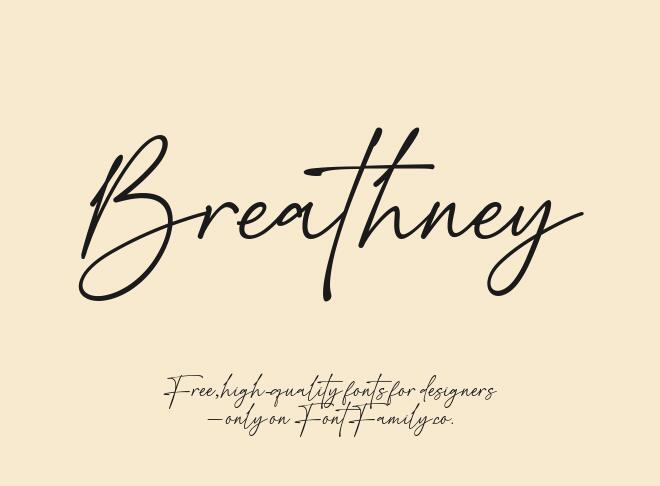
Breathney Font
Breathney Font is a sophisticated, handwritten script typeface designed by Design Foundry. This font exudes a classic elegance, making it perfect for high-end branding, wedding invitations, logo designs, and more. Its unique character set helps it stand out from other script fonts, while its smooth curves and fluid connectivity make it easy to read and aesthetically pleasing. Breathney Font is reminiscent of traditional calligraphy but with a modern twist. It's versatile in its application, making it a go-to choice for designers looking to add a touch of elegance and sophistication to their work. With its free personal use license, Breathney Font is an accessible and attractive option for both professional designers and hobbyists alike.